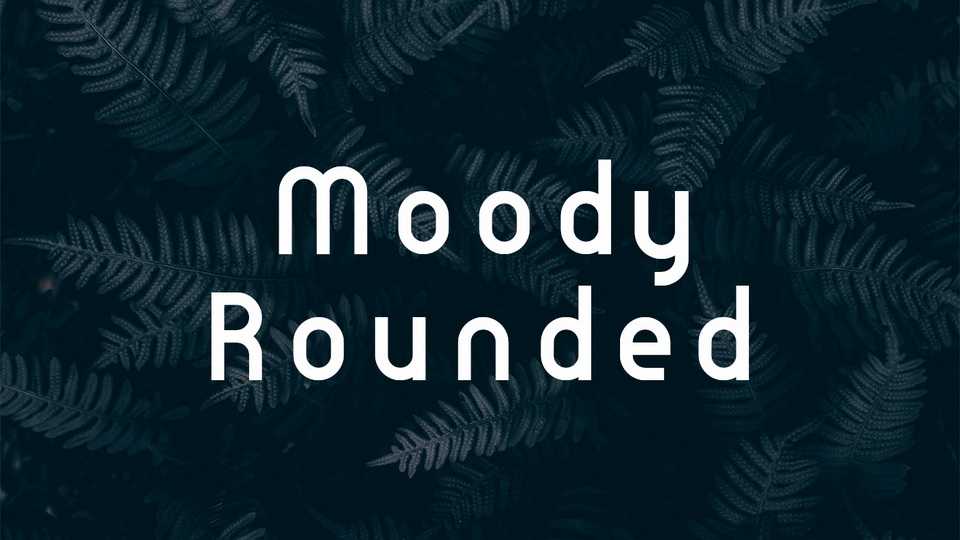
Download Moody Rounded font, a geometric sans serif typeface made from circular modules. Moody Rounded is suitable for posters and ads, for crisp titles and smart identity graphics and other display uses.
Designer: Jose Daza Boutellier